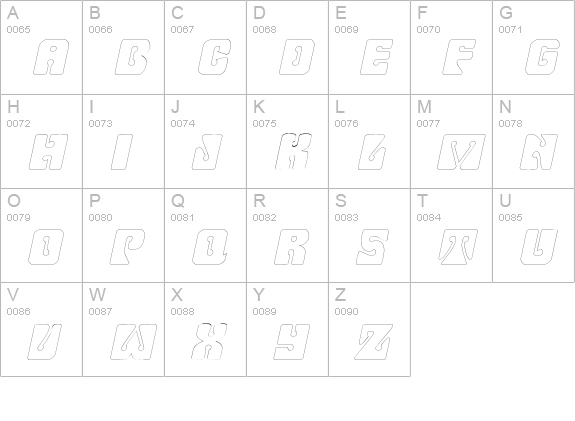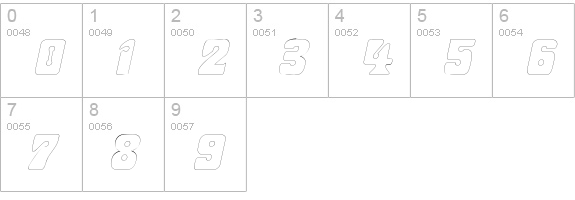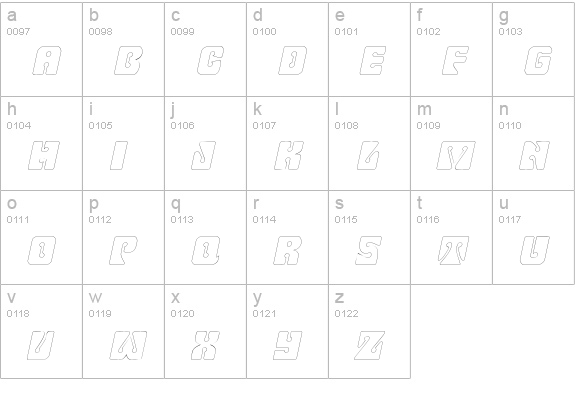
WavyOrnamentalOutline Oblique Font Details
WavyOrnamentalOutline Oblique is a distinctive, italic variant in the WavyOrnamentalOutline typeface family \xE2\x80\x94 well suited to design and typography projects.
WavyOrnamentalOutline Oblique font is a stunning display typeface that effortlessly combines elegance and intricacy. Its unique design features delicate waves and ornamental details, giving any project a touch of sophistication and style. With its oblique slant, this font adds a dynamic and contemporary twist to any design. This font is perfect for a wide range of creative projects, such as logo design, branding, packaging, invitations, and more. Its eye-catching and ornate letterforms make it a versatile choice for both digital and print applications. Whether you're designing a luxury brand or creating a captivating headline, WavyOrnamentalOutline Oblique font will certainly make your designs stand out. One of the best things about this font is that it is freely available to download at FontsMarket.com. You can easily access this font and start using it in your projects without any hassle. Its high-quality and professional design make it a valuable asset for any designer or creative professional. Don't miss out on the opportunity to enhance your designs with the beauty and elegance of WavyOrnamentalOutline Oblique font. Download it for free at FontsMarket.com and let your creativity flow with this stunning typeface.